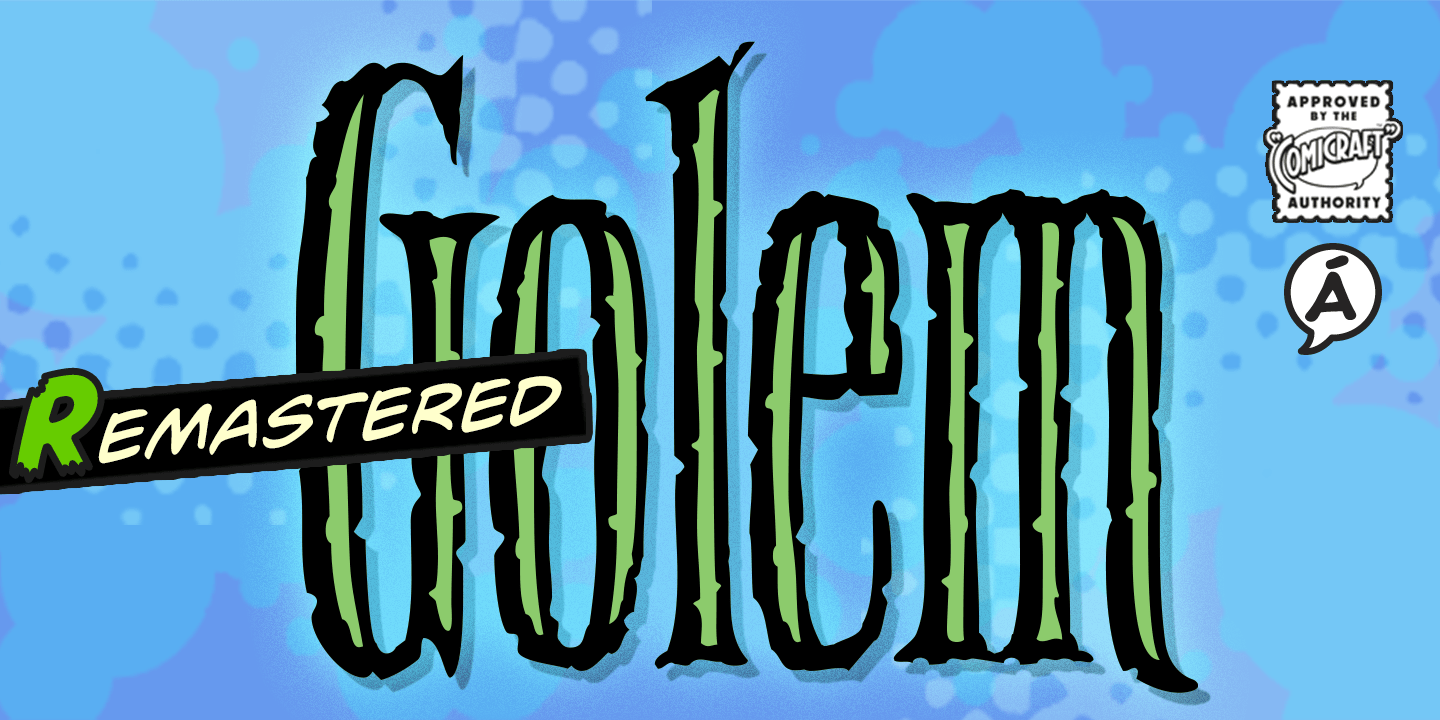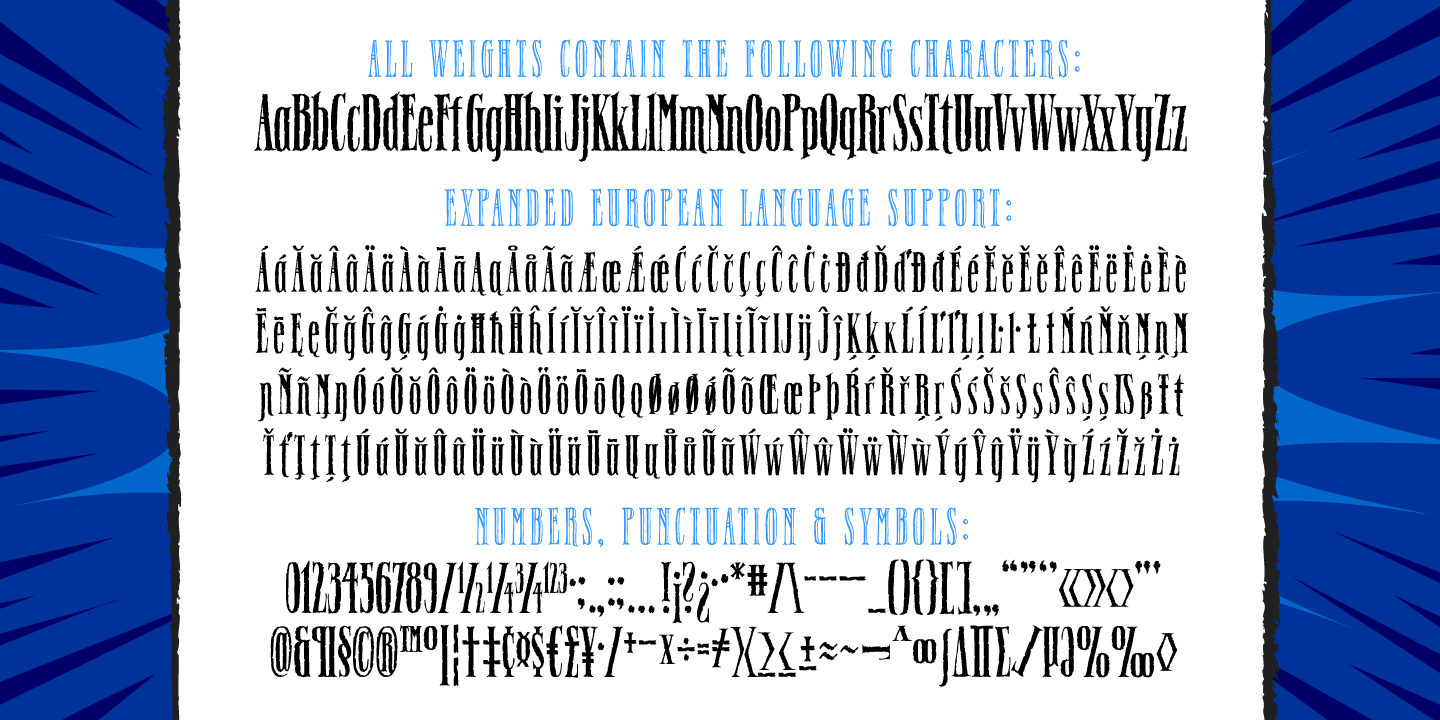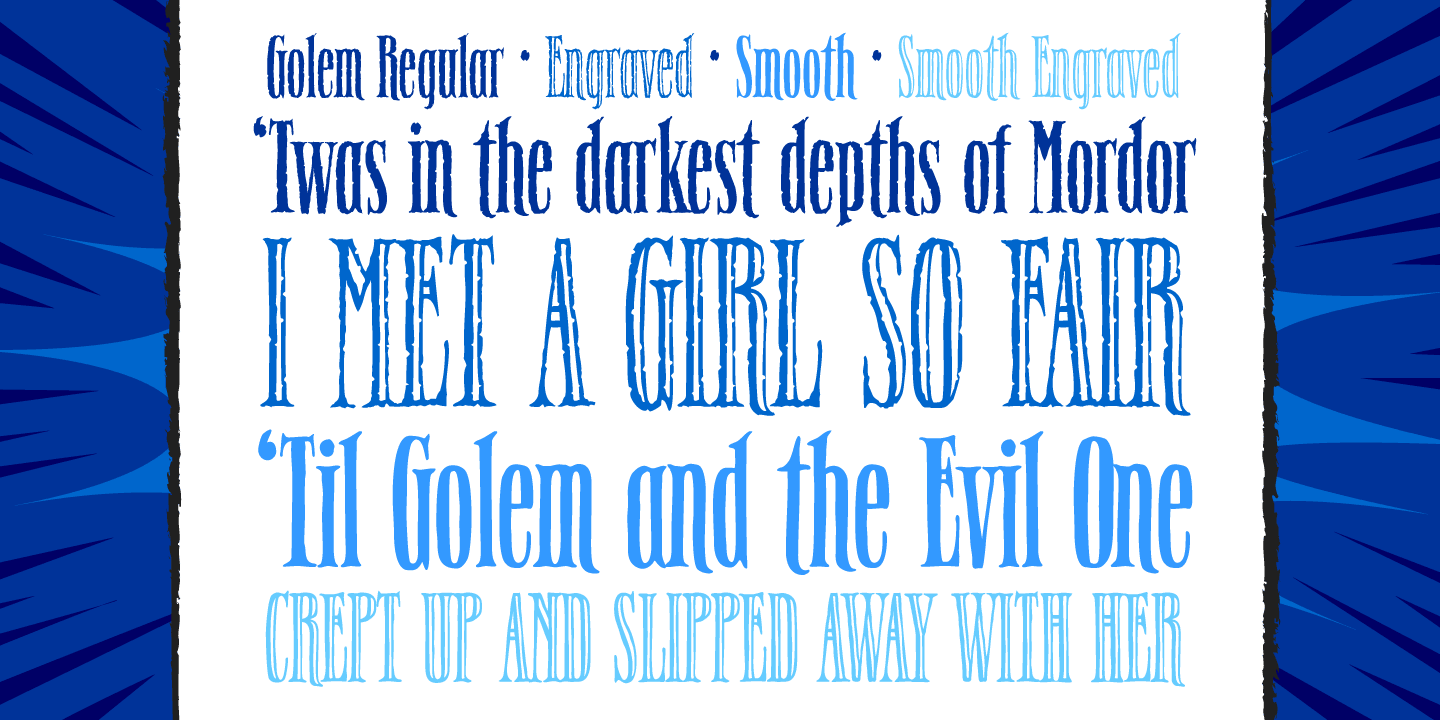
Golem
Trolls are lurking under each and every river crossing. The earth is shaking as Ogres stomp across the land, spiked clubs in hand. Swordsmen and Sorcerers are waging war on one another even as the pure and young and stout of heart search for the talisman which will restore harmony once more. Are you under the spell of some wizard's magickal incantation or are you just looking for exactly the right typestyle for your J.R.R. Tolkien Convention newsletter?
Regardless, an ancient curse has been lifted and the Talmudic Legend of the Clay Beast they call GOLEM has been restored to his former majesty. The shapeless mass is no longer one of unfinished substance, no longer a body without a soul. The Homunculus that was once Comicraft's Golem has had a spiritual awakening and is now available with the crinkly bits smoothed off.